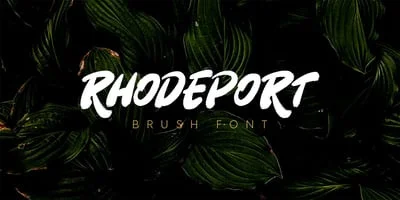
Rhodeport Font
Rhodeport Font is ideal for maritime design projects including shipping company branding, nautical restaurant menus, coastal resort materials, maritime museum exhibits, yacht club signage, harbor development promotions, fishing industry packaging, and seafaring adventure campaigns. This distinguished typeface works excellently for port authority documents, maritime law firms, naval academy materials, lighthouse preservation projects, and designs celebrating oceanic heritage and coastal living.
What makes Rhodeport Font exciting is its distinguished maritime character that perfectly embodies the timeless elegance and steadfast reliability of seafaring traditions. The font features strong, anchored letterforms with subtle nautical influences that reflect the stability and endurance of port cities and maritime commerce. Its sophisticated design elements capture the essence of oceanic adventure and coastal sophistication, making it perfect for projects that need to convey trustworthiness, heritage, and connection to the sea. The carefully balanced proportions create a sense of maritime authority and professional excellence.
Rhodeport Font comes in multiple family variations including light, regular, medium, bold, and condensed styles. Each weight maintains the distinctive maritime character while offering different levels of visual authority and nautical presence. The font family includes ocean-inspired alternates, anchor ligatures, and coastal variations that provide designers with comprehensive options for creating truly professional and seaworthy typographic compositions.
Whether you're designing maritime branding, creating coastal marketing materials, or developing nautical promotional graphics, Rhodeport Font provides the perfect typographic harbor for projects that celebrate oceanic excellence and maritime heritage. This exceptional typeface transforms ordinary text into compelling declarations of seafaring strength and coastal sophistication. Download this remarkable font today and navigate your design projects toward success with typography that captures the enduring spirit of maritime tradition and oceanic adventure.